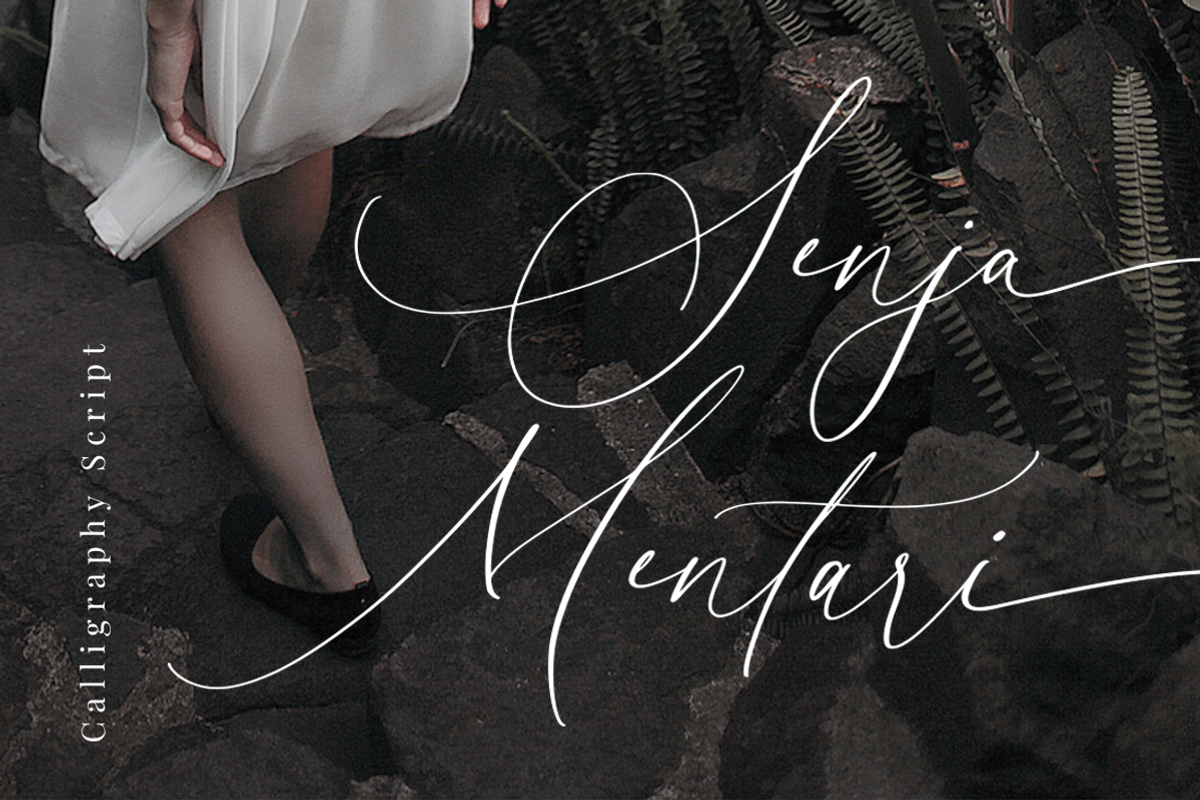
Senja Mentari – Modern Script Font Free Download is a graceful and contemporary handwritten typeface, perfect for adding a touch of elegance to your creative projects. With its flowing strokes and smooth curves, this script font is ideal for wedding invitations, branding, social media content, and feminine packaging.
Designed to reflect warmth and sophistication, Senja Mentari brings a personal, artistic flair to any layout. Whether you're crafting a logo, quote graphic, or boutique product label, this font offers both style and readability.